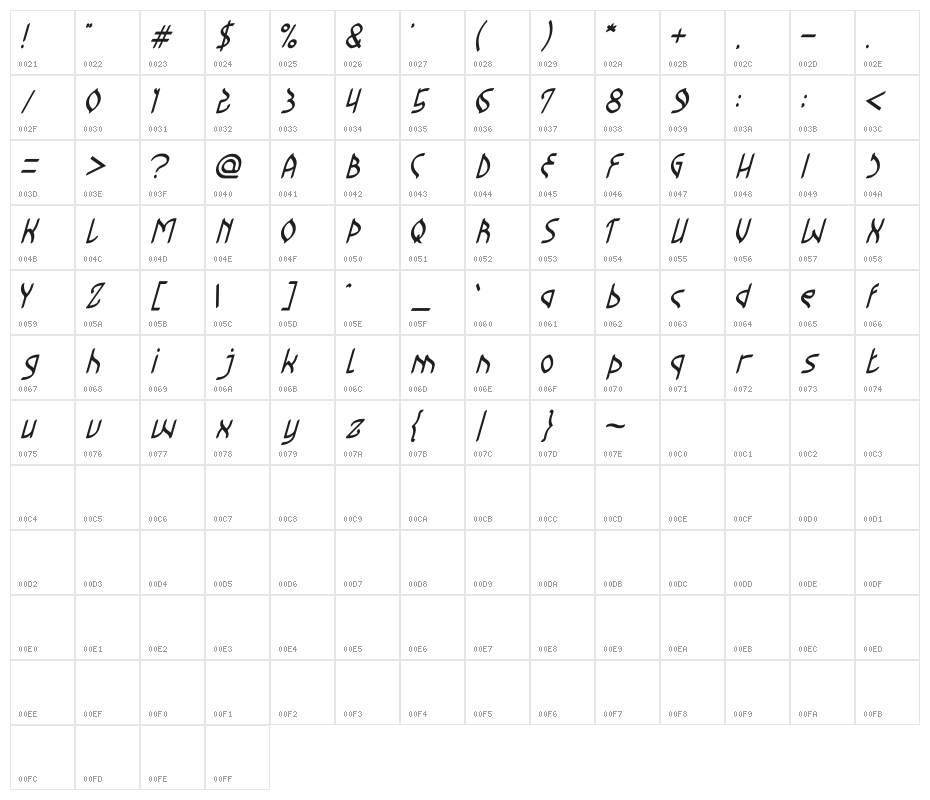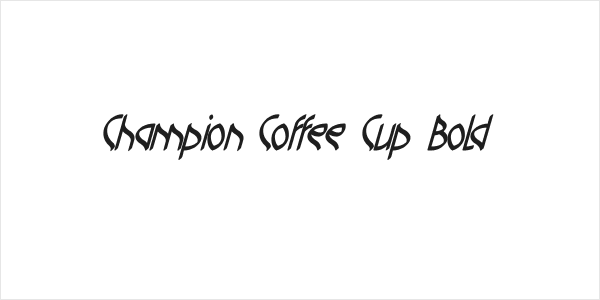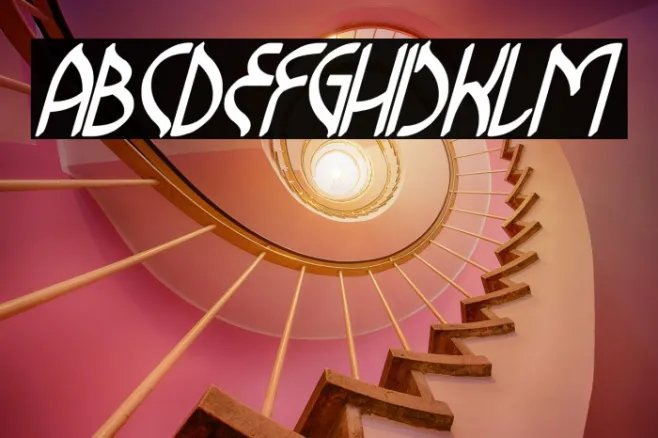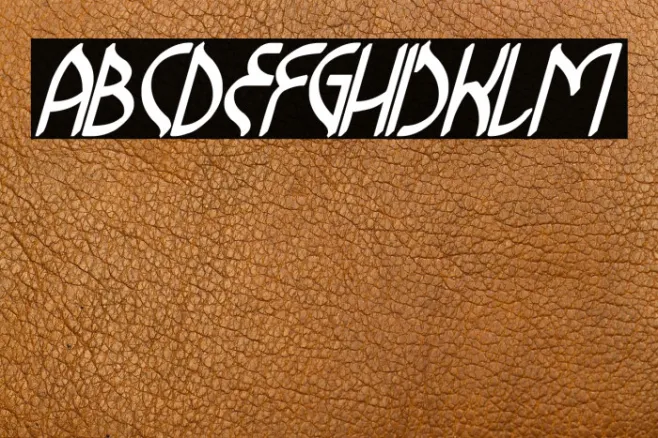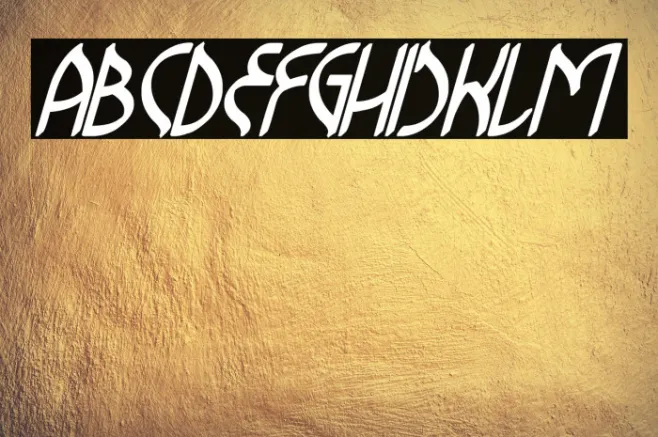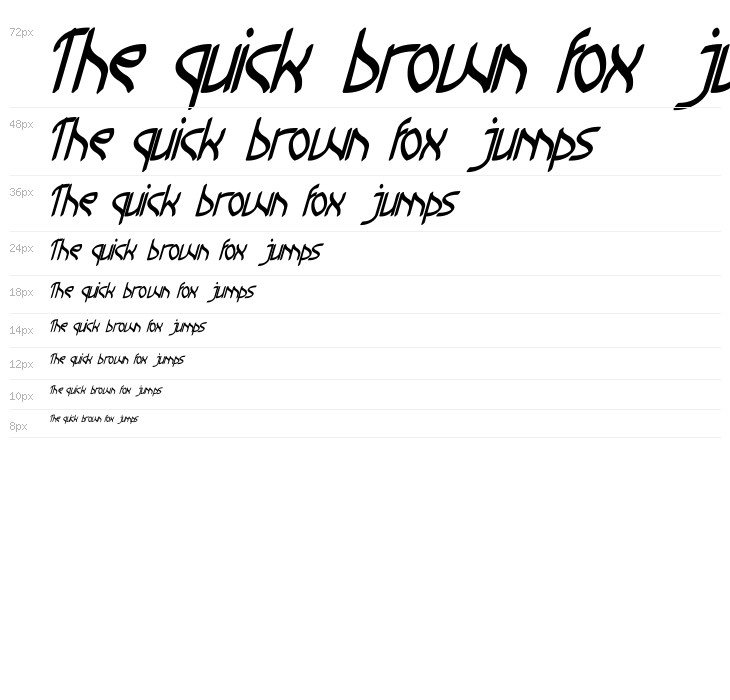
Champion Coffee Cup Bold Font
Champion Coffee Cup Bold Description
This font features a bold and dynamic style with a strong presence. The characters are slightly slanted, giving them an energetic and forward-moving appearance. The strokes are thick and consistent, providing a sense of strength and stability. The uppercase letters are particularly striking, with sharp angles and unique forms that make them stand out. The lowercase letters maintain the same boldness, ensuring readability while adding a touch of flair. The numbers and special characters are equally bold, designed to complement the overall style. This font is ideal for making a statement, with its eye-catching design and powerful aesthetic.